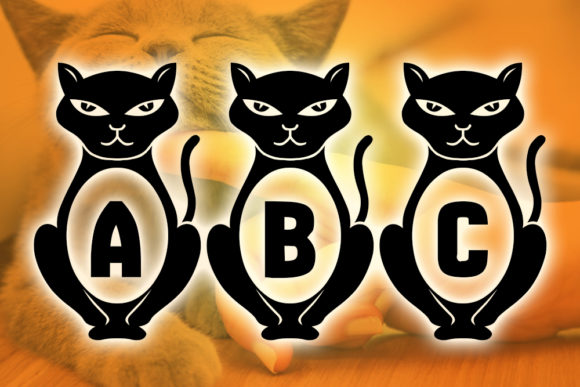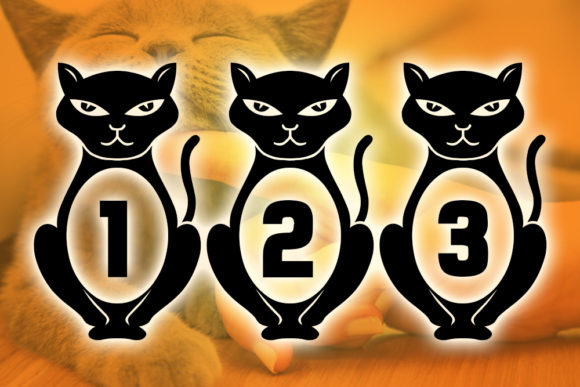
Introduction to Kitties Font
The Kitties is an awesome decorative font.
The letters are packed in cute kitties which will give your design a playful feel It’s perfect for any birthday or invitation cards or posters.
Why Choose Kitties Font?
Kitties Font offers exceptional quality and versatility, making it a valuable addition to your design toolkit. Whether you’re creating for personal projects or commercial use, Kitties Font delivers professional results.